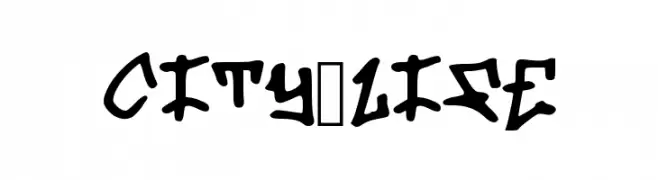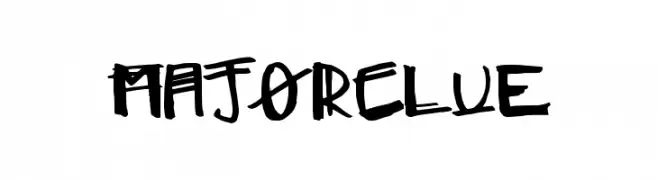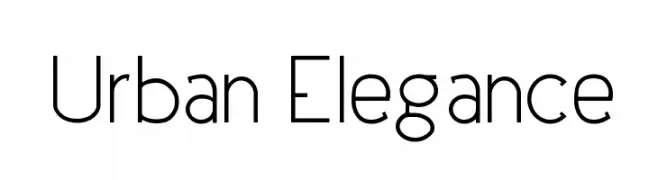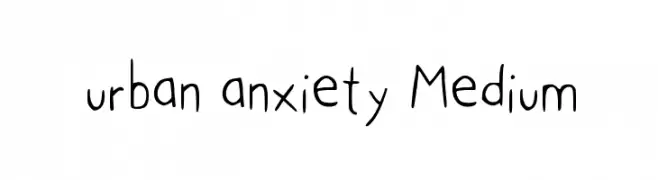
A modern, geometric sans-serif font with clean lines and consistent stroke width.
A bold, graffiti-inspired font with dynamic, hand-drawn characters.
A playful, hand-drawn font with tall, narrow characters and a whimsical style.
A bold, jagged font with a graffiti-like, energetic style.
A bold, graffiti-style font with dynamic, brush-like strokes.
A bold, dynamic font with thick strokes and a playful, energetic style.
A bold, graffiti-inspired font with a dynamic, hand-drawn style.
A gritty, textured font with a graffiti-inspired, hand-drawn style.
A bold, graffiti-inspired font with sharp angles and high contrast.
A bold, graffiti-inspired font with a hand-drawn, energetic style.